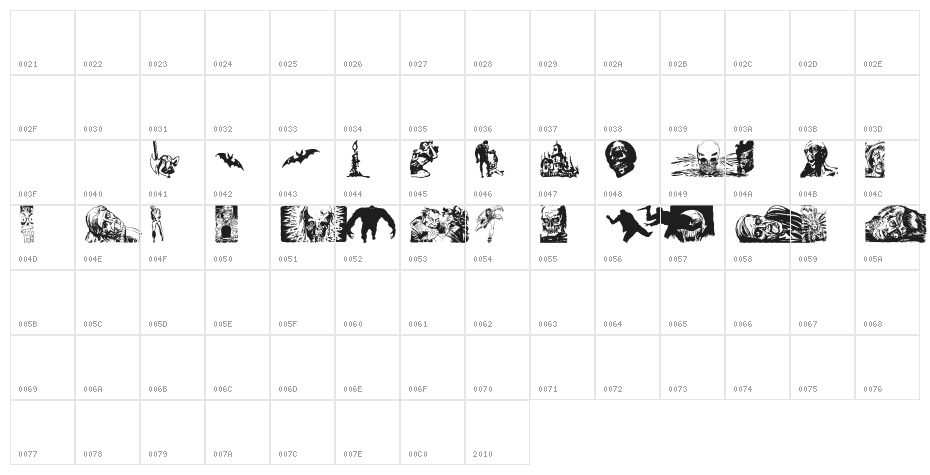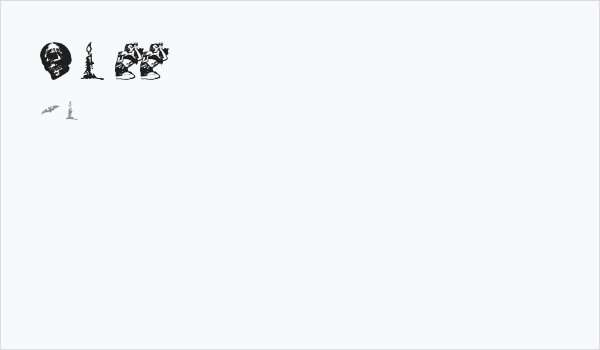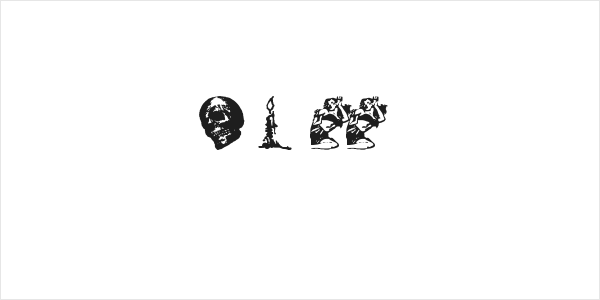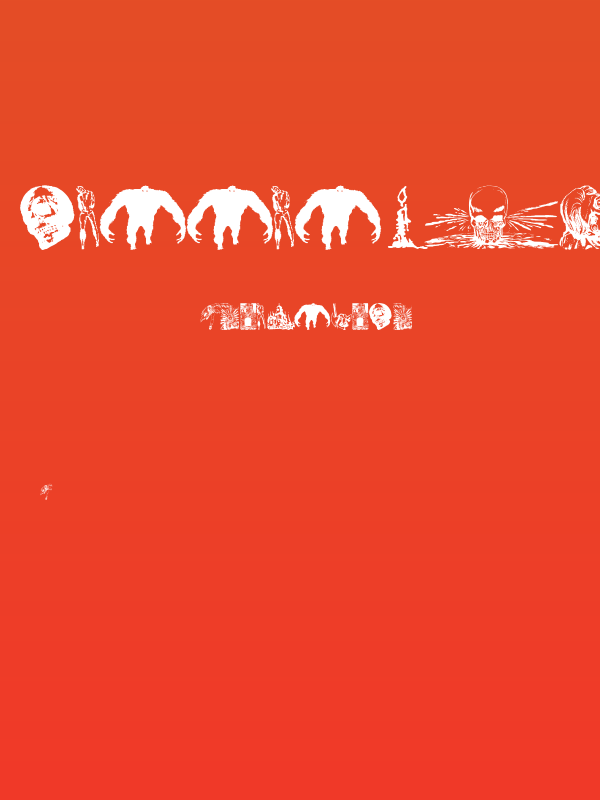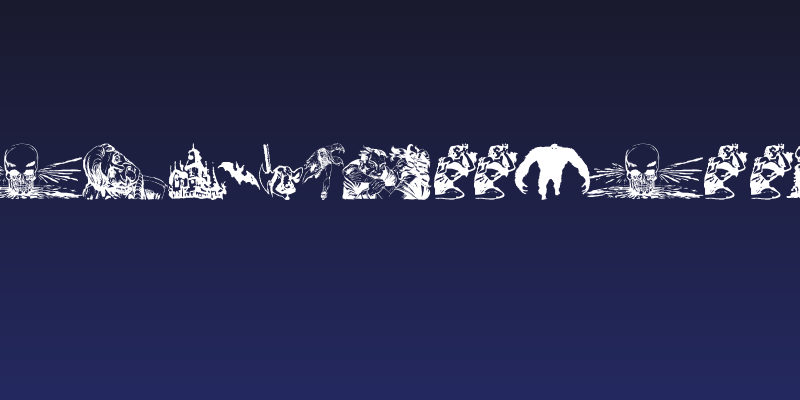
Horror Dingbats Eerie Edition Font
Horror Dingbats Eerie Edition Description
This collection features a series of horror-themed dingbats, each representing a different eerie and spooky element. The designs include bats, skulls, haunted houses, and other macabre imagery, perfect for adding a chilling touch to any project. Each symbol is intricately detailed, capturing the essence of classic horror motifs. The style is bold and graphic, making it suitable for high-impact designs. The characters are consistent in their dark, foreboding theme, providing a cohesive set that can be used to create a haunting atmosphere.
| Use Case | Logos, Headlines, Decorative elements |
| Proposed Projects | Ideal for Halloween decorations, horror movie posters, themed invitations, and spooky event flyers. |